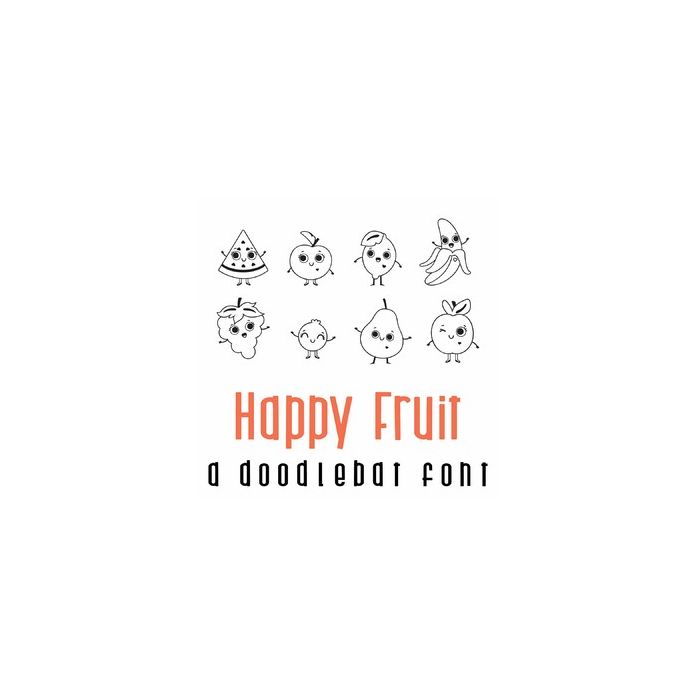
Happy Fruit Doodlebat Font
This fun doodlebat font features 26 kawaii style fruit. Perfect for cards, gifts, decor, crafts, scrap book pages, planner stickers and more!